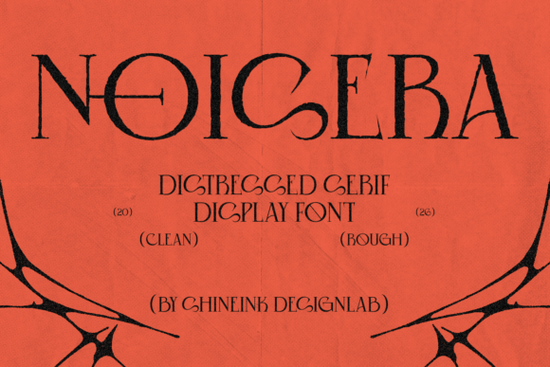
Designers, crafters, and small business owners looking for a unique typeface to elevate their projects will find the Noisera Font to be a standout choice. This distressed serif display font brings together vintage charm with modern design sensibilities, making it ideal for a wide range of creative applications. Whether you're working on luxury branding, editorial layouts, or packaging designs, Noisera offers a bold and expressive visual presence that stands out.
Noisera is inspired by aged letterpress prints, antique book typography, and gothic elegance. The font features dramatic serif structures and handcrafted distressed details that add depth and character to any design. Each letterform carries subtle imperfections that evoke the authenticity of traditional printmaking techniques while maintaining a refined and premium appearance. This balance between texture and clarity makes Noisera a versatile option for both bold headlines and sophisticated logos.
What Makes Noisera Unique?
Noisera stands out from other distressed fonts due to its thoughtful design approach. Unlike many fonts that sacrifice readability for texture, Noisera maintains clarity without compromising on style. The font includes two distinct styles: Clean and Rough. The Clean version offers a polished and elegant look, perfect for luxury branding and editorial work. The Rough version adds authentic distressed textures, giving your designs a handcrafted feel that’s both rich and expressive.
When to Use Noisera
Noisera is ideal for a variety of design projects. Its vintage aesthetic works well for fashion editorials, book covers, and album artwork. For small businesses, it can help create eye-catching logos and packaging that stand out in a crowded market. Print-on-demand sellers may find it useful for adding a unique touch to custom merchandise like t-shirts, mugs, and posters.
Whether you're designing for a cinematic poster or a luxury brand, Noisera adds a timeless sense of craftsmanship and personality. Its expressive alternates and artistic ligatures allow for creative typographic compositions that feel both intentional and dynamic.
As you experiment with Noisera, keep in mind that the best results come from pairing it with complementary design elements. Try using it in combination with clean sans-serif fonts for contrast, or pair it with muted color palettes to let the typography shine.
Whether you're a seasoned designer or just starting out, Noisera provides a powerful tool for adding character and depth to your work. Its blend of vintage appeal and modern functionality makes it a valuable addition to any design toolkit.
Remember, the goal of any font is to enhance the message it conveys. Noisera does this by bringing a sense of history and artistry to every letter. With its expressive style and practical features, it's a font that can truly make a difference in your creative projects.
Consider adding Noisera to your collection if you're looking for a font that combines elegance with a touch of rugged charm. Its flexibility and quality make it a strong choice for designers who want to stand out while maintaining professionalism.